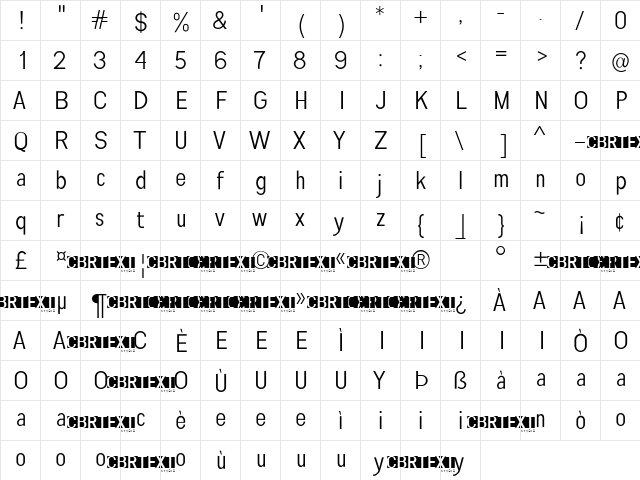
Engula Regular Font Preview
Engula Regular
Engula Regular Font Details
| Foundry | CBRTEXT Studio |
| Designer | CBRTEXT Studio |
Design Context for Engula Typeface
Engula takes a measured approach to typography — its balanced proportions and neutral character make it a reliable workhorse for both digital and print work.